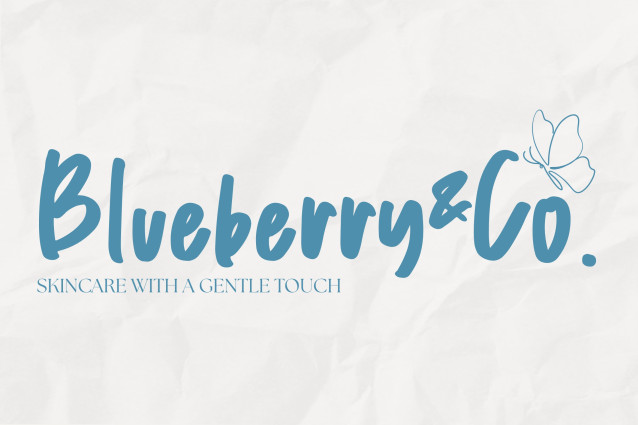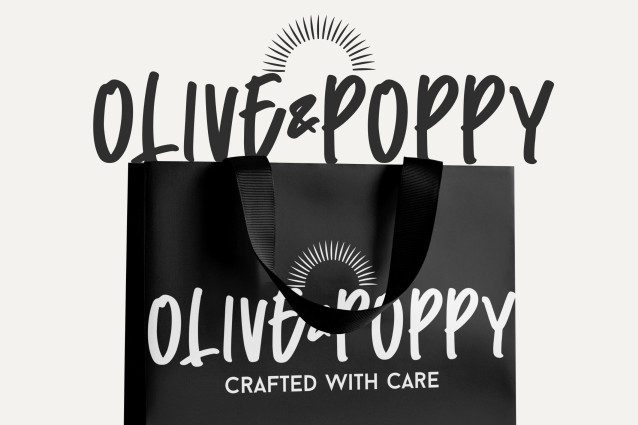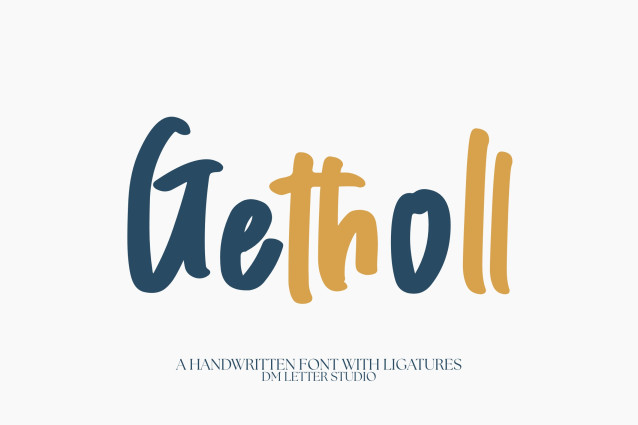
Getholl Font
Getholl Font is a smooth and expressive handwritten font designed with stylish ligatures and natural flow. Each letter carries a personal touch, making your text look effortlessly handwritten. With carefully crafted ligatures for enhanced authenticity, Getholl is perfect for branding, quotes, packaging, and lifestyle content that craves elegance and warmth.